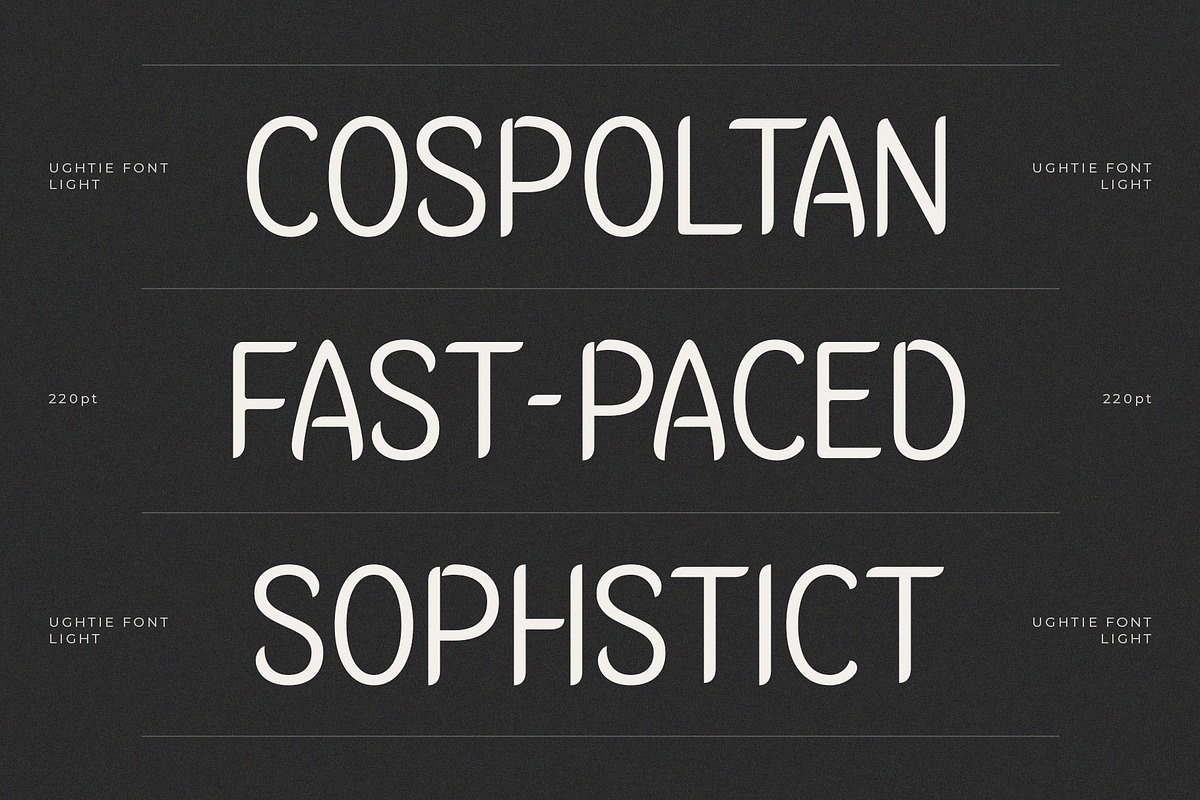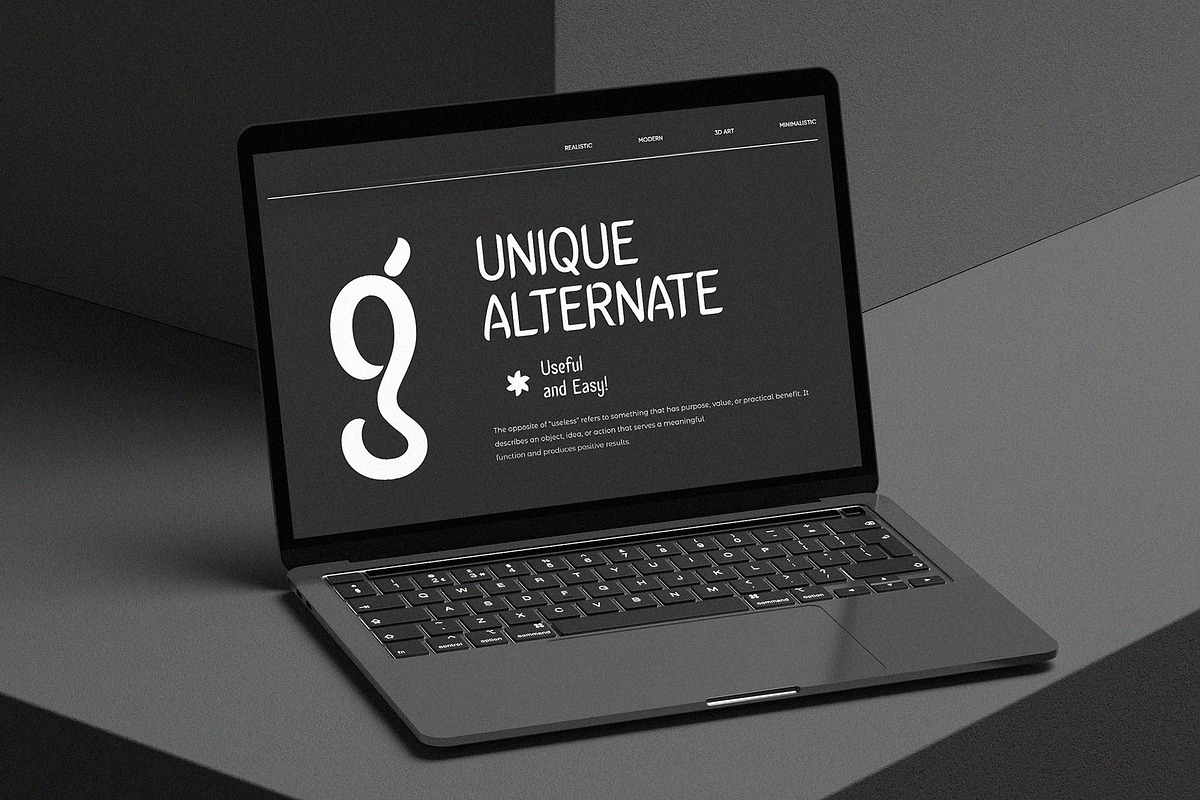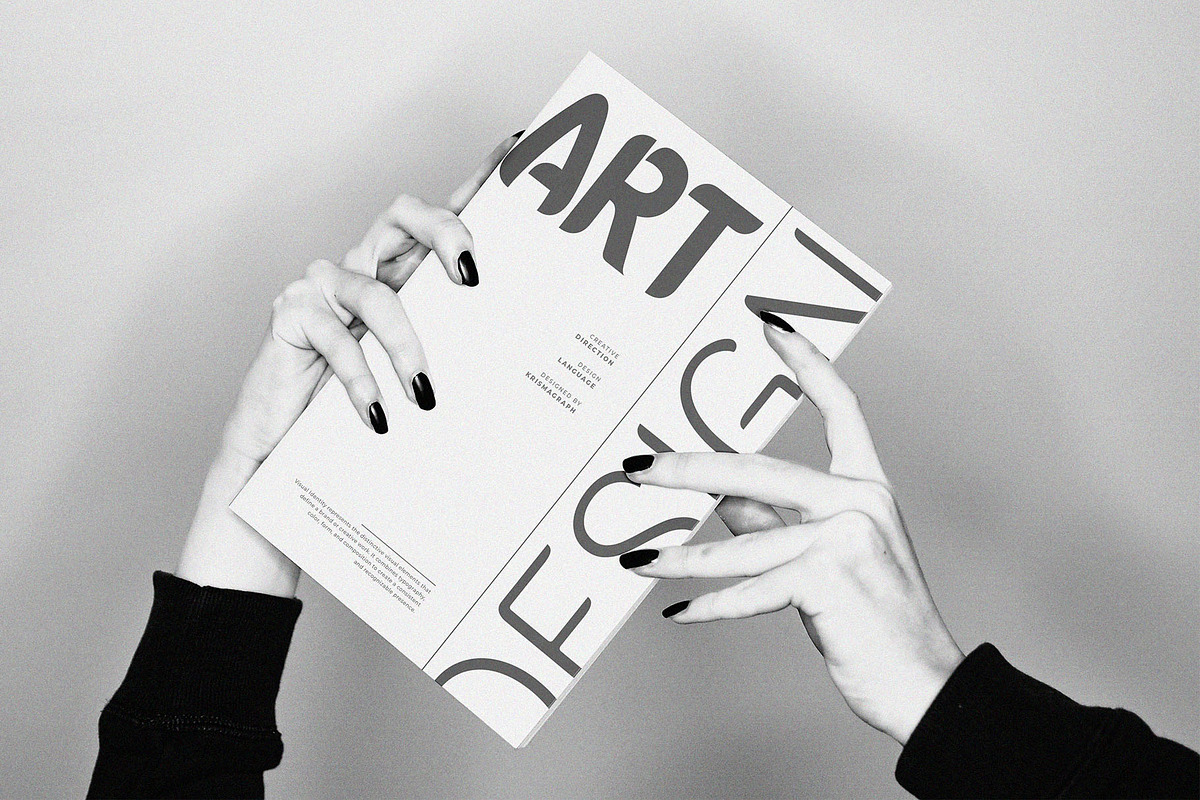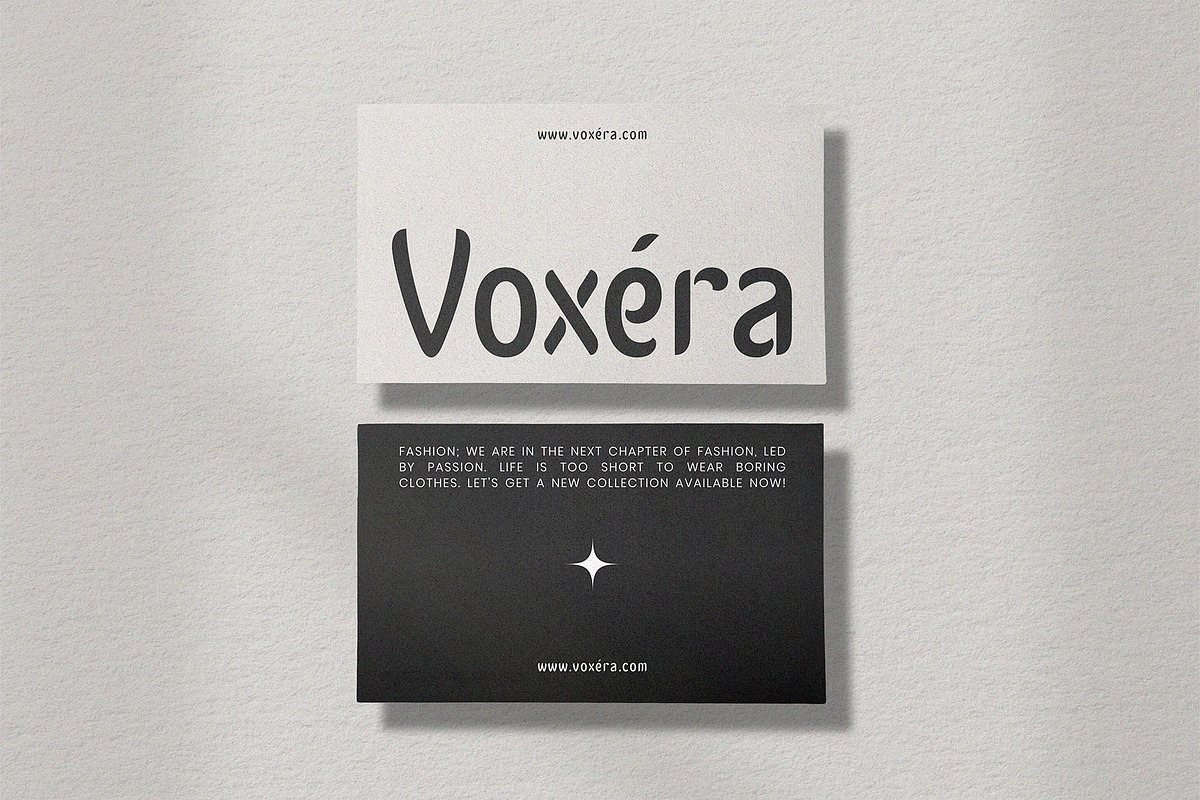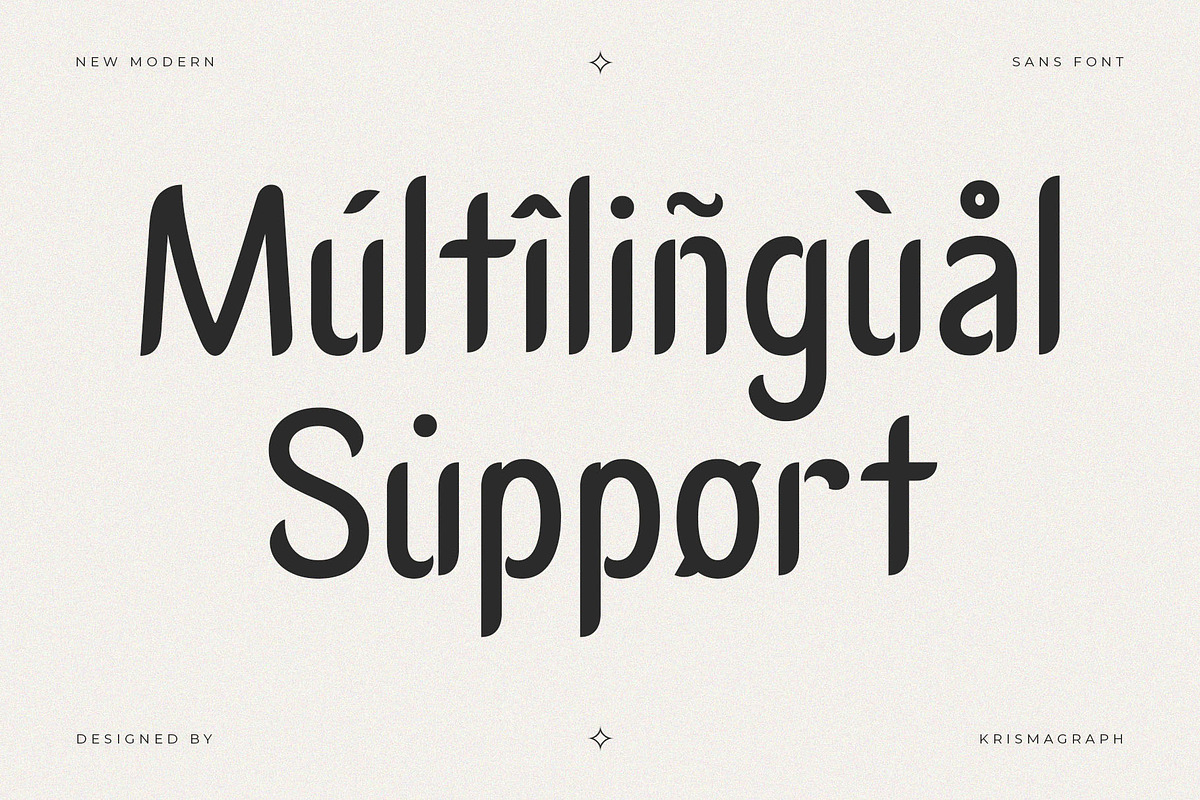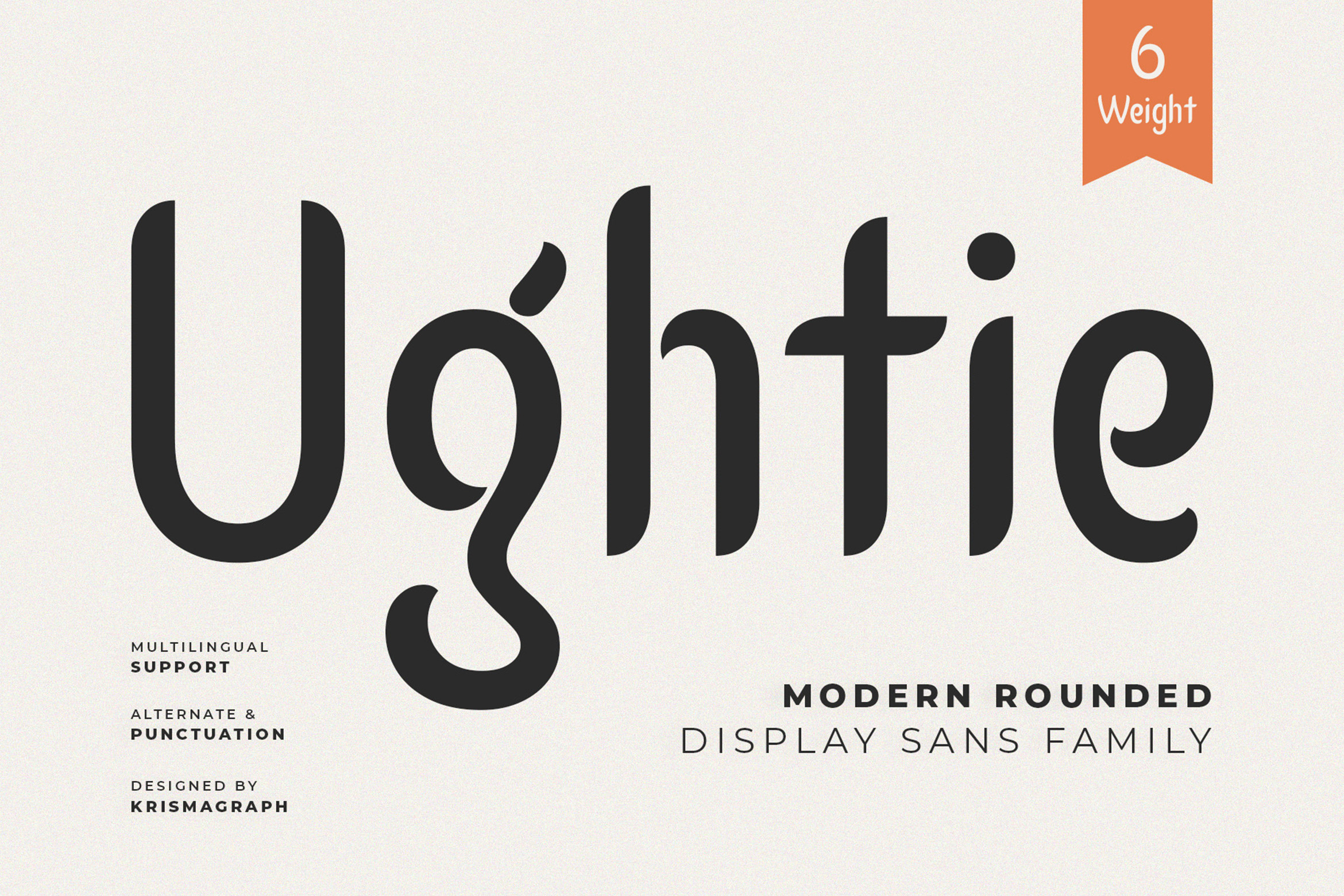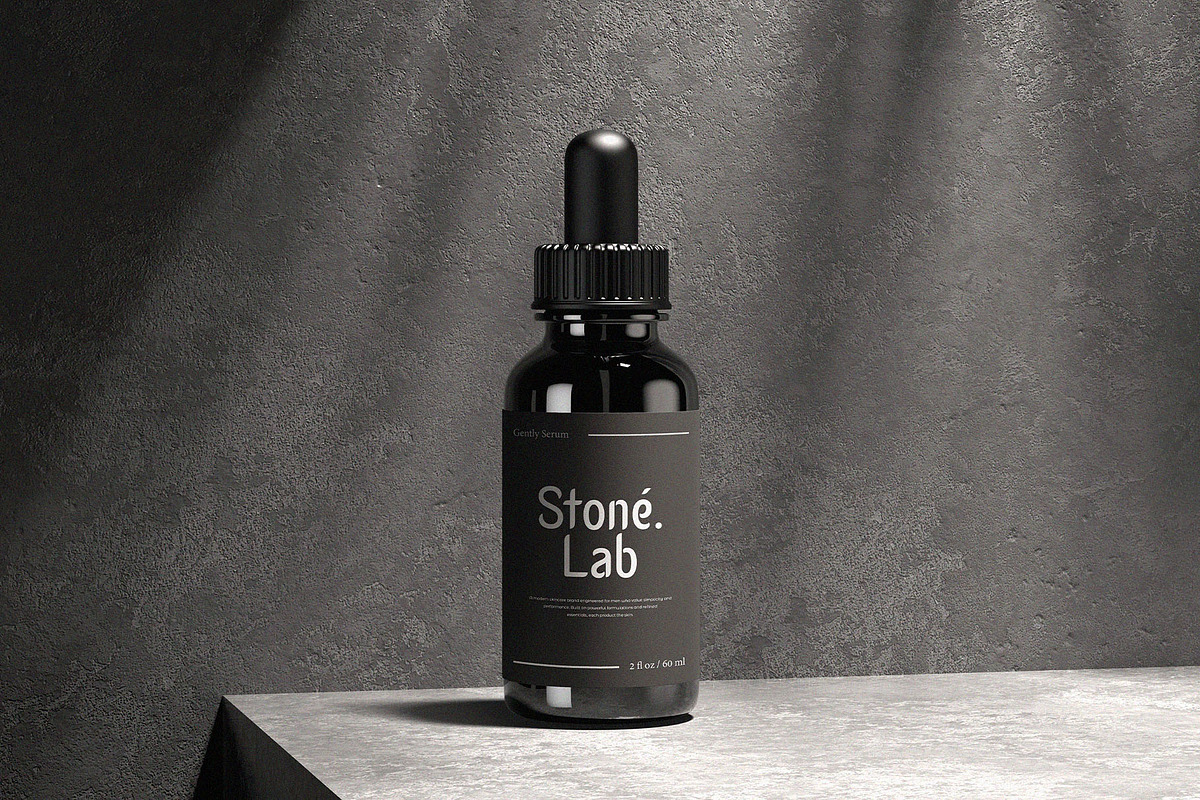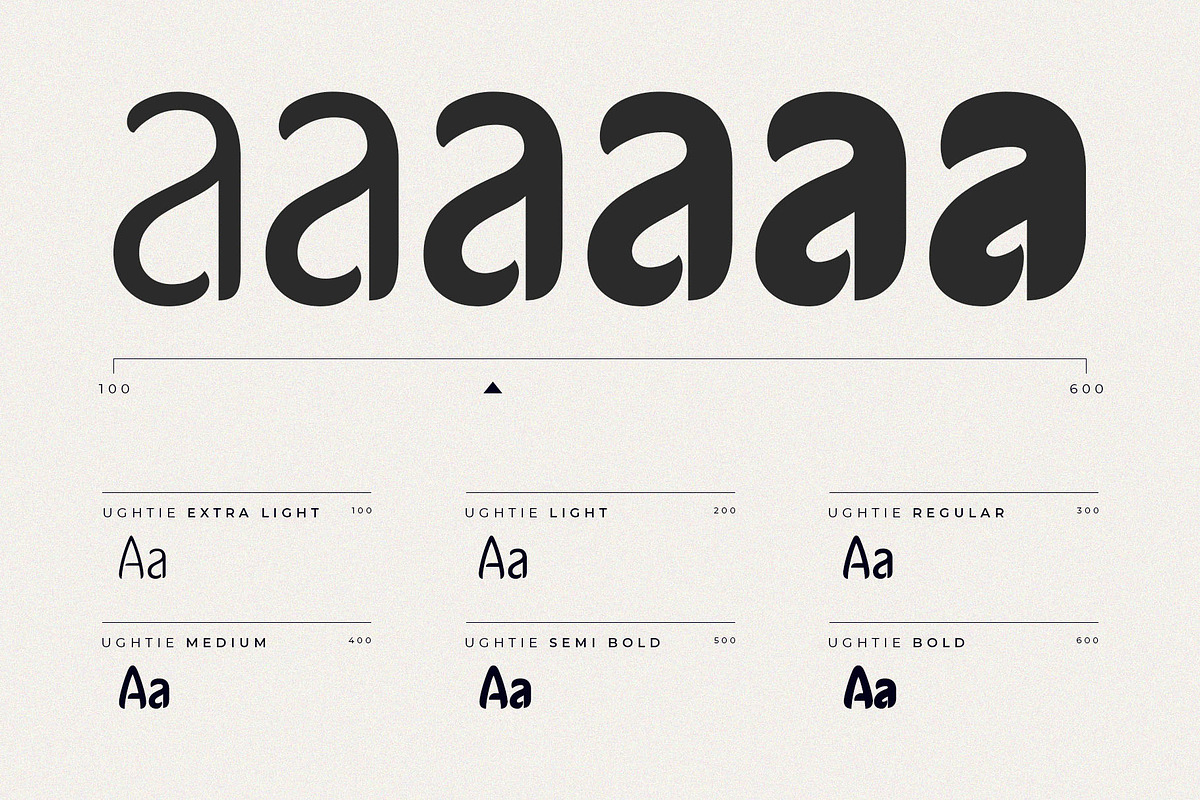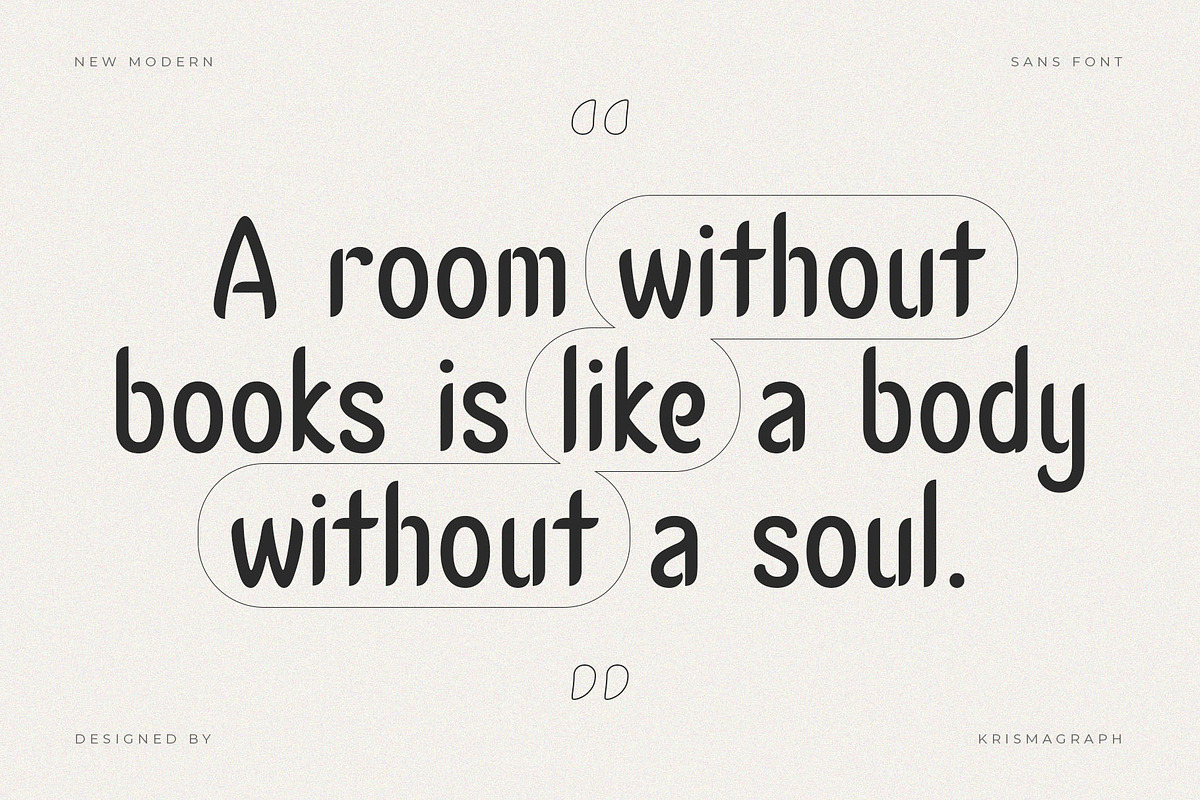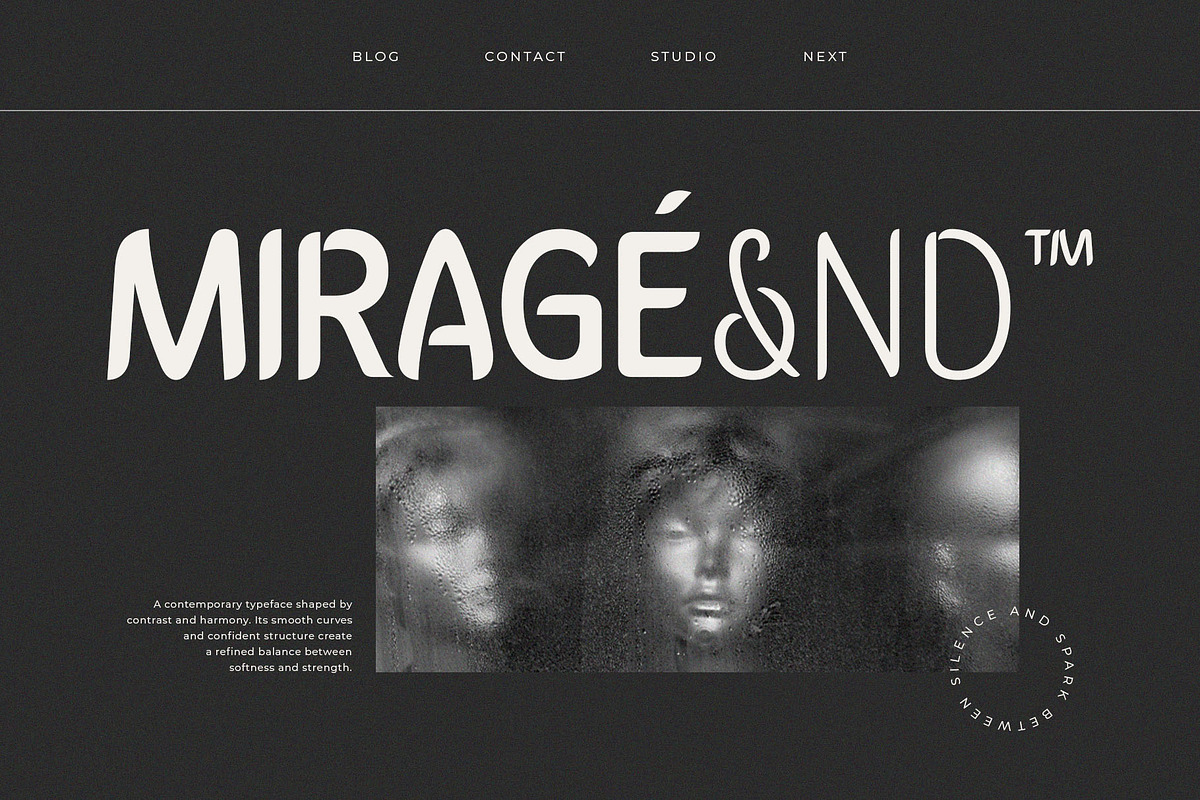
Ughtie – Elegant Sans Family Font
Ughtie is a contemporary rounded display sans-serif family that strikes a refined balance between geometric structure and warm approachability. With 6 distinct weights — from light to extra bold — it delivers typographic flexibility for complex design systems without sacrificing personality.
The font's hallmark is its flowing, almost calligraphic lowercase letterforms, where certain strokes extend with an unexpected elegance. This gives Ughtie a distinctive character that feels both modern and human — a rare combination in geometric sans design. The result is a typeface that works hard as a headline, feels right in brand identities, digital interfaces, and creative campaigns.
From tech startups and wellness brands to children's publishing and consumer packaging, Ughtie gives your design an edge that is recognizably unique.
6 weights (Light to Extra Bold) Alternate characters & multilingual support Ideal for: digital, branding, UI design, wellness, consumer products, publishing.
- Numbers, fractions
- Punctuation and symbols